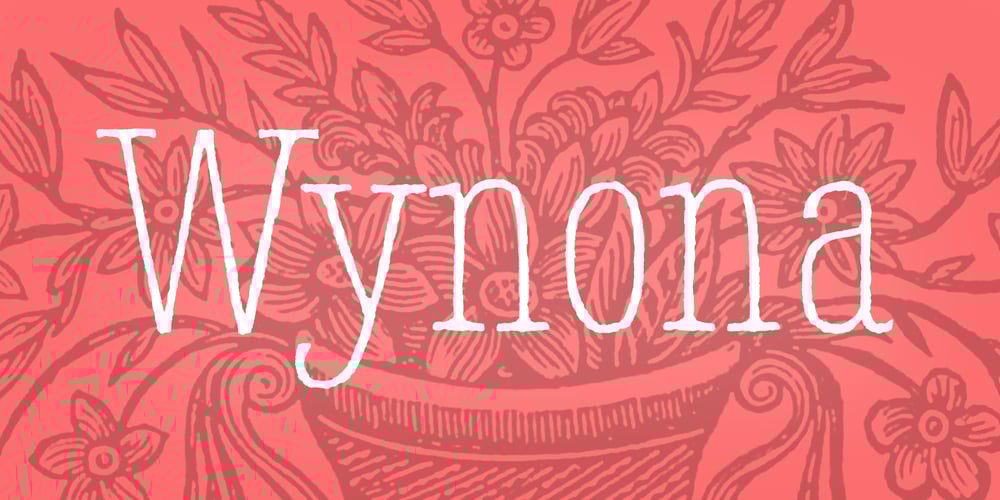
Wynona Font Family was designed by William Hastings and published by Pacific Standard Type. Wynona contains 1 styles and family package options. Jaunty, irreverent, whimsical and rebellious — Wynona brings the attitude of Mae West, the wit of Dorothy Parker, and the disconcerting exuberance of a child running with scissors.